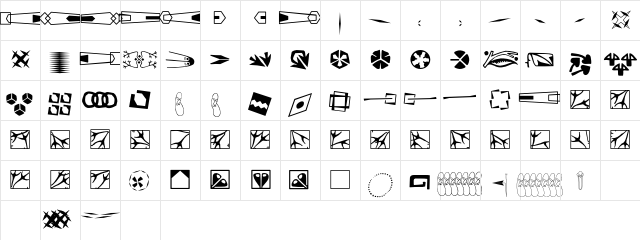
P22Preissig Extras
Style: Extras
P22Preissig Family
Design Context for P22Preissig
P22Preissig is a composed and adaptable typeface that performs quietly and consistently across a wide range of design contexts.